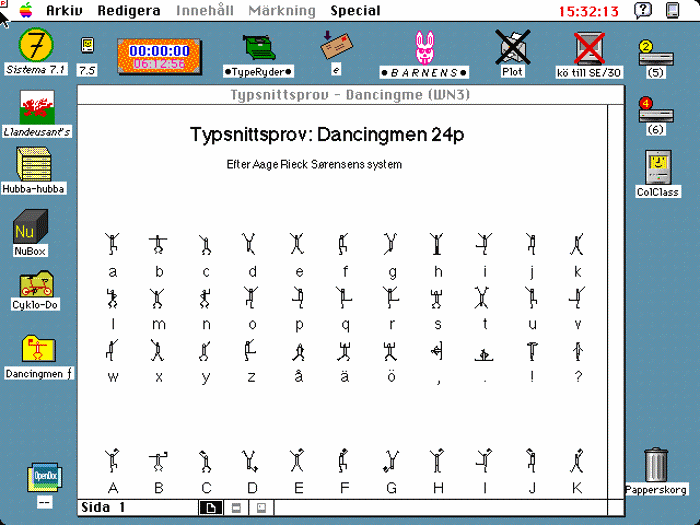
Dancingmen Font
Based on the code featured in the Sherlock Holmes adventure "The Dancing Men" that baffled Mr. Hilton Cubitt of Ridling Thorp Manor, with characters added to complete the alphabet. Send secret messages to your friends warning them of danger!